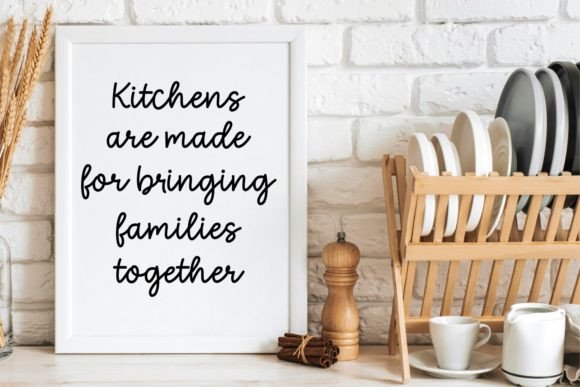
Love Cookies Font
Love Cookies is a sweet and flowing handwritten font. It has a harmonious and balanced ligatures style and as a result, it matches a wide range of crafty ideas. This font is PUA encoded which means you can access freely all glyphs and swashes!